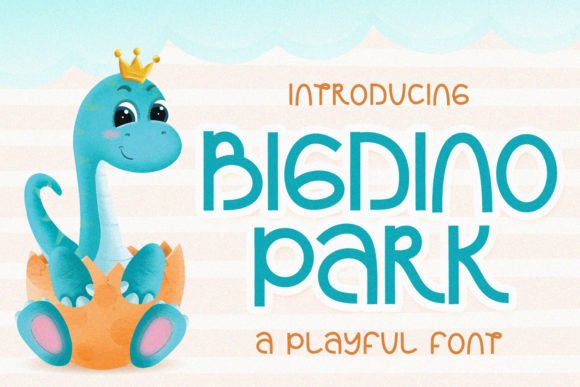
Discover the Magic of Bigdino Park Font
Have you ever been on a creative roll, with ideas flowing freely and your imagination running wild? That’s exactly what happened when designers stumbled upon the enchanting Bigdino Park Font. Its unique and effortless style has captured the hearts of many, and for good reason.
Bigdino Park Font is a masterfully crafted display font that exudes a playful and minimalist charm. Its distinct letters are a perfect blend of modernity and whimsy, making it an ideal choice for a wide range of creative projects. Whether you’re designing a logo, a poster, or a social media campaign, Bigdino Park Font is sure to elevate your designs and leave a lasting impression.
Bigdino Park Font Key Features
- Font Family: Bigdino Park Font is a sans-serif font designed for digital use, making it ideal for UI/UX design, digital signage, and more.
- Size: The font family consists of 6 styles, including Thin, Light, Regular, Medium, Bold, and Black, offering a range of weights for flexible use.
- Unique Characteristics: Bigdino Park Font features a clean and modern design, with distinctive geometric shapes and subtle rounded edges, giving it a friendly and approachable feel.
- Language Support: Supports multiple languages, including Latin, Cyrillic, and Greek scripts, making it suitable for global applications.
Designer Review: Bigdino Park Font
Bigdino Park Font is a unique, childlike font that could be perfect for certain projects, especially those targeting a younger audience. Here are some of its strong points: ✨
- Fun and playful aesthetic
- Comes in a variety of styles, including bold, italic, and condensed
- Easy to read, even at smaller font sizes
- Not ideal for formal or professional projects
- May not be suitable for projects that require a high level of sophistication or elegance
- Some letters and symbols may not be optimized for certain languages or character sets
Overall, Bigdino Park Font is a solid choice for projects that require a lighthearted, playful tone. Its strengths make it a great option for children’s books, educational materials, or other projects that target a younger audience. However, it may not be the best choice for more formal or serious projects.
Bigdino Park Font is a playful and whimsical font that is perfect for:
- Brand logos and merchandise
For the most effective use of Bigdino Park Font, consider using it in conjunction with bold colors and playful graphics.